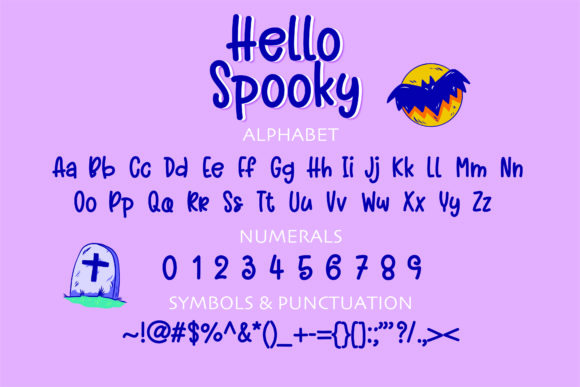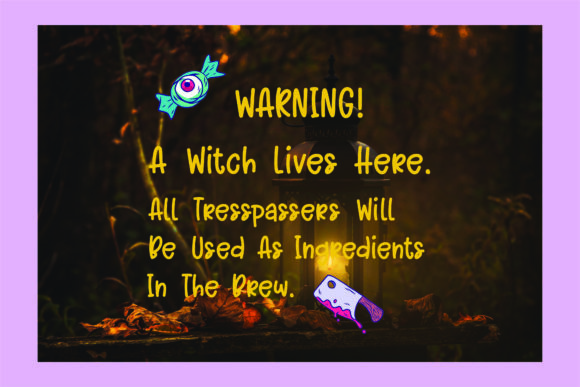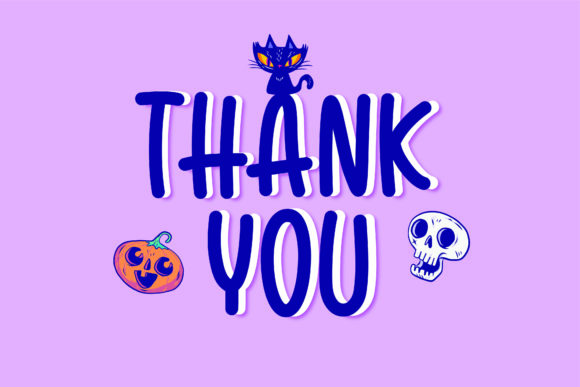
Hello Spooky Font
About Hello Spooky Font
Hello Spooky is a cute, friendly and neat handwritten font. Whether you are using it for cartoon-related designs, children games, quotes, titles, brand names, book covers, posters, or just any creation that requires a touch of joy, this font is a great choice.